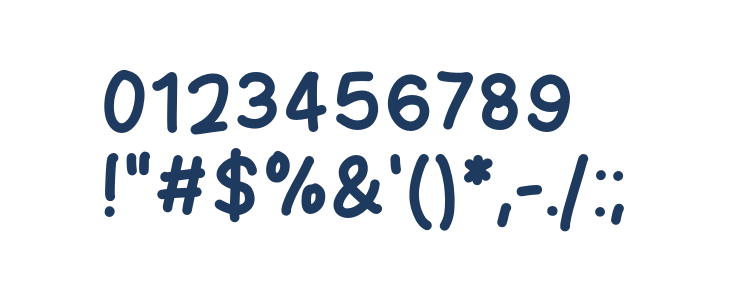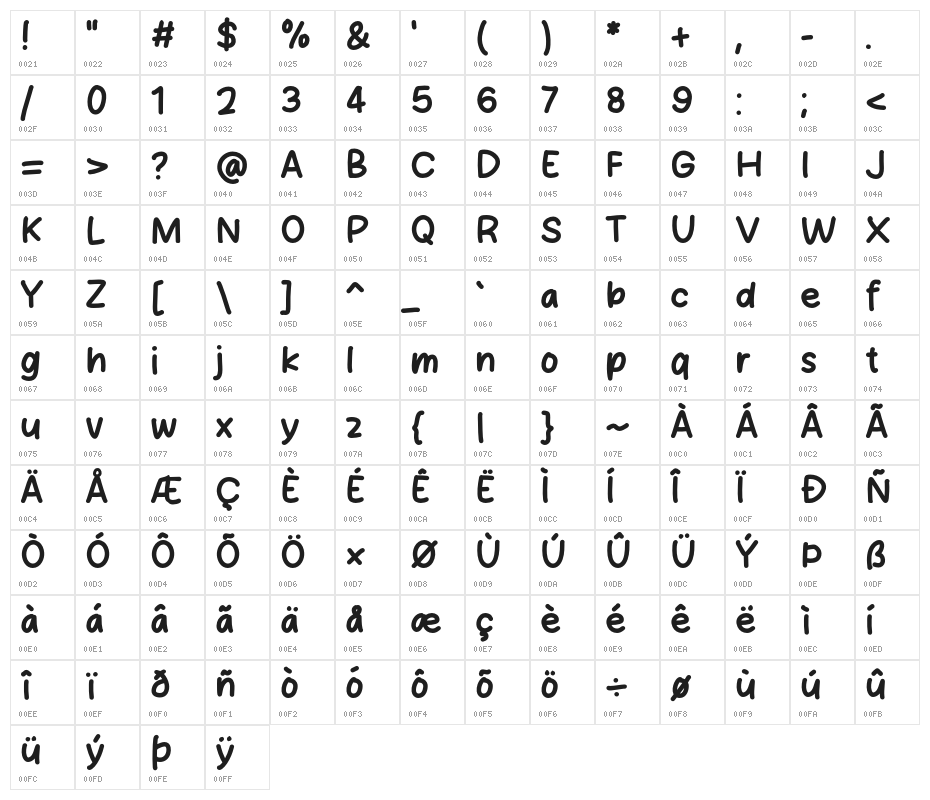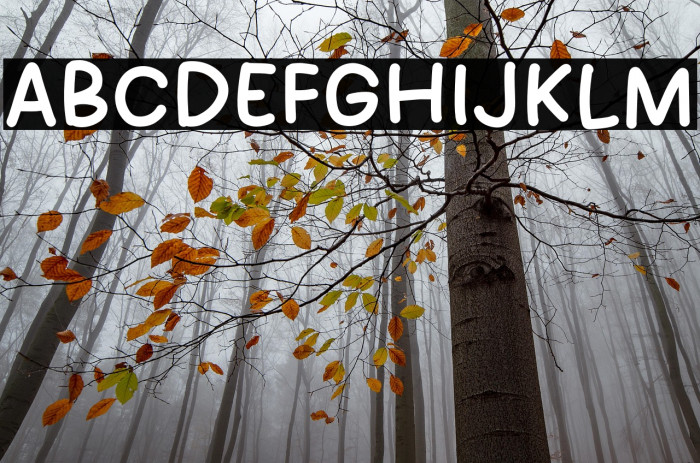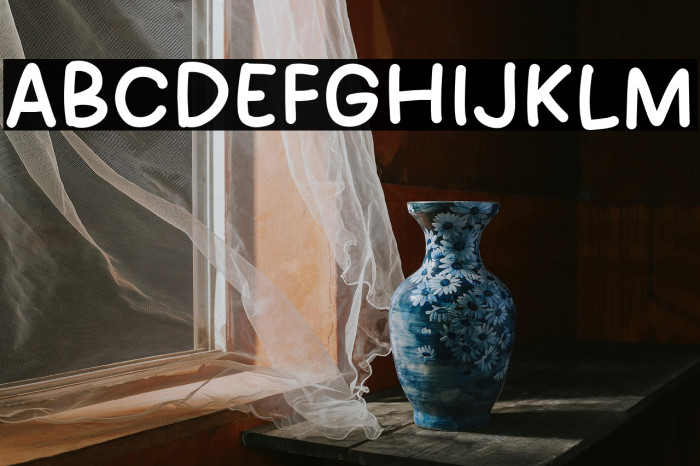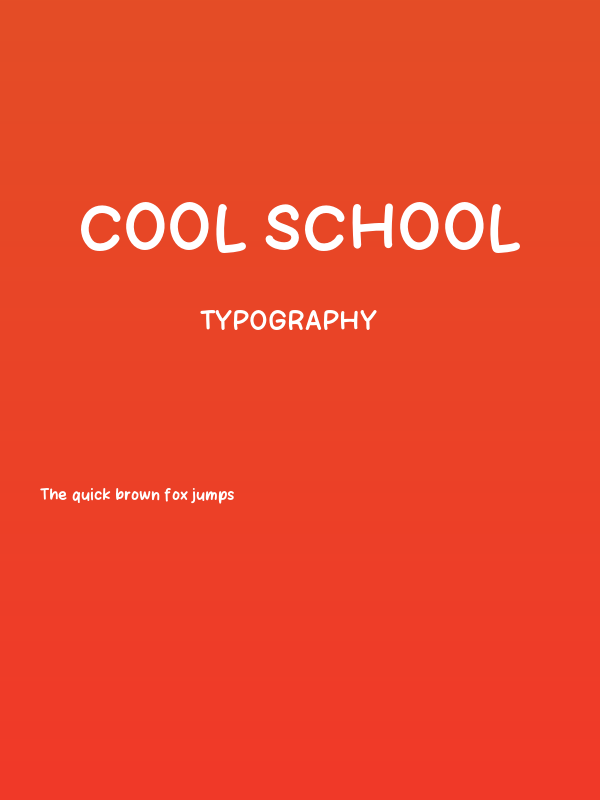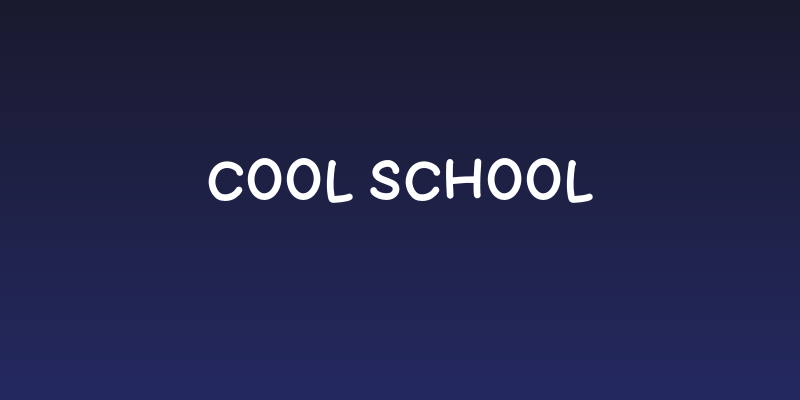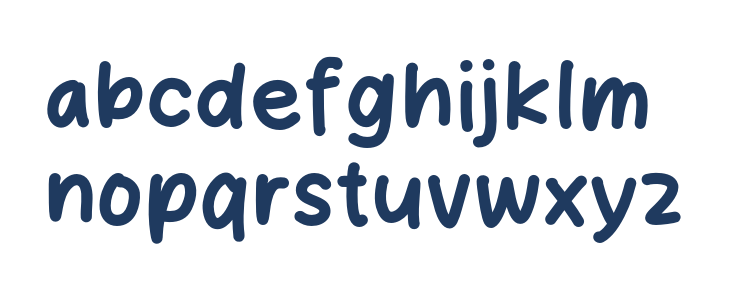
Cool School Font
Cool School Description
This playful and rounded font exudes a casual and friendly vibe, making it ideal for informal and creative projects. The characters are bold and slightly irregular, giving them a hand-drawn appearance that adds a touch of whimsy. The font maintains a consistent stroke width, contributing to its approachable and easy-to-read nature. Its rounded edges and smooth curves enhance its playful aesthetic, making it suitable for children's books, educational materials, and fun branding projects. The spacing between characters is balanced, ensuring readability while maintaining its unique style.
| Proposed Projects | Ideal for children's books, educational materials, fun branding, and creative projects. |